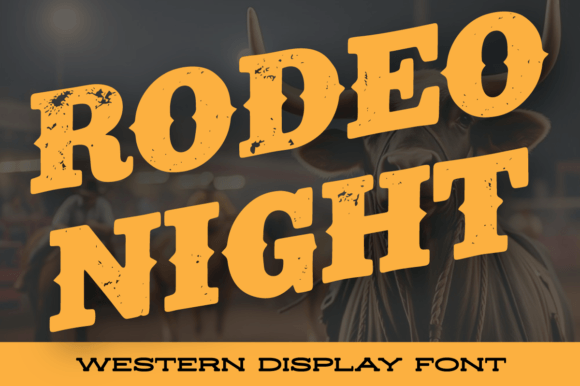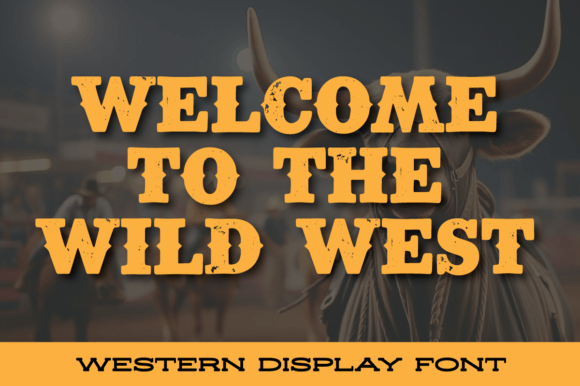
“Rodeo Night” is a bold, rugged, and distressed Western-style font that captures the wild spirit of the Old West. Each letter is thick and blocky, with pronounced serifs that resemble the sturdy, weathered signs seen outside saloons or rodeo arenas. The font’s texture is rough and worn, as if it has been aged by years of desert winds and dusty trails.
The distressing on the letters gives it a vintage, rustic appearance, with cracks, scratches, and faded areas, mimicking the look of old wooden signs or branding irons. The letters feel strong and bold, yet imperfect, creating an authentic, gritty Western vibe.
“Rodeo Night” embodies the energy of a bustling cowboy town, perfect for posters, event flyers, or anything that evokes rodeos, country music, or the untamed spirit of the West. Its bold presence commands attention, while the distressed details add character and history.
This font does not include any numbers or punctuation.